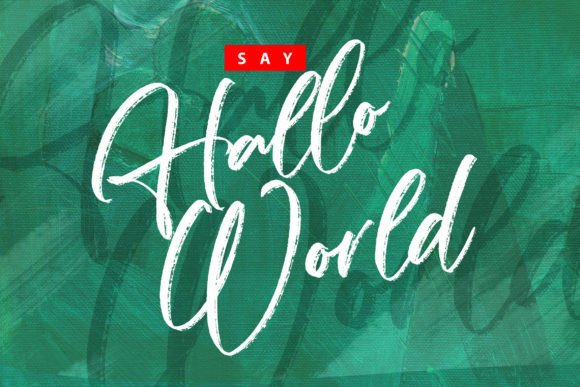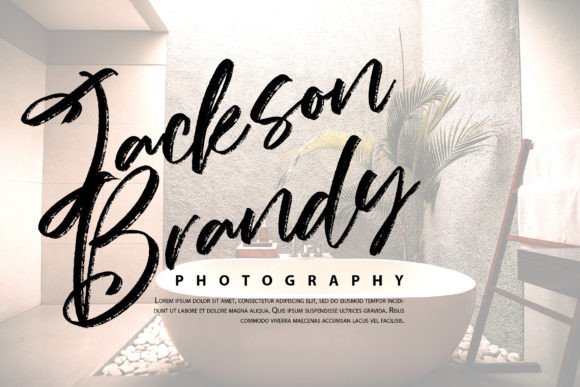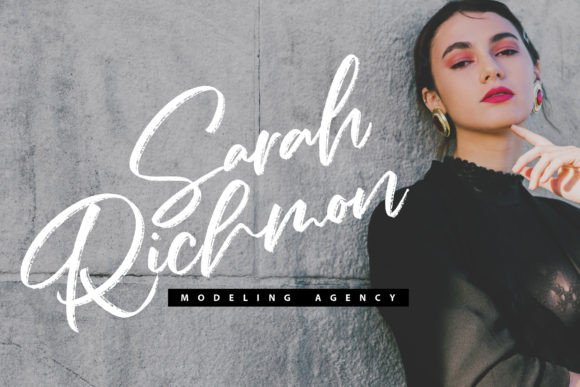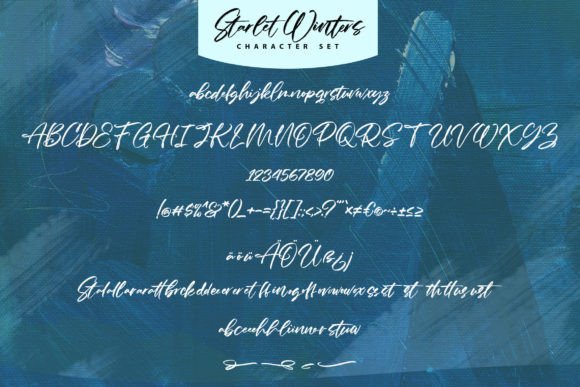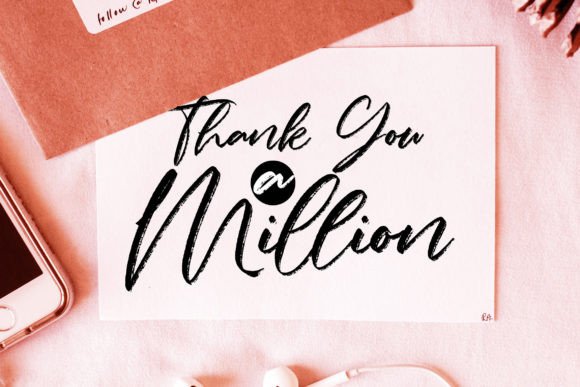
Starlet Winters Font
About Starlet Winters Font
Introducing Starlet Winters, a charming and elegant font that adds a touch of sophistication to your designs. This font looks stunning on various applications such as wedding invitations, thank-you cards, quotes, greeting cards, logos, business cards, and any design that requires a handwritten touch.
The charming and elegant characteristics of Starlet Winters make it a versatile choice for a wide range of design projects. Whether you’re creating elegant wedding invitations, expressing gratitude with thank-you cards, adding warmth to quotes, or making a memorable impression with business cards and logos, Starlet Winters is crafted to enhance the visual appeal of your designs.
Consider using Starlet Winters to bring a handwritten touch to your designs, adding a level of charm and elegance that suits a variety of contexts. Its versatility makes it a delightful choice for projects that demand a sophisticated and personal feel.
In essence, Starlet Winters is more than just a font; it’s a design element that elevates your projects, making them charming and elegant. Let it be the go-to choice for creating visually stunning designs that leave a lasting impression.